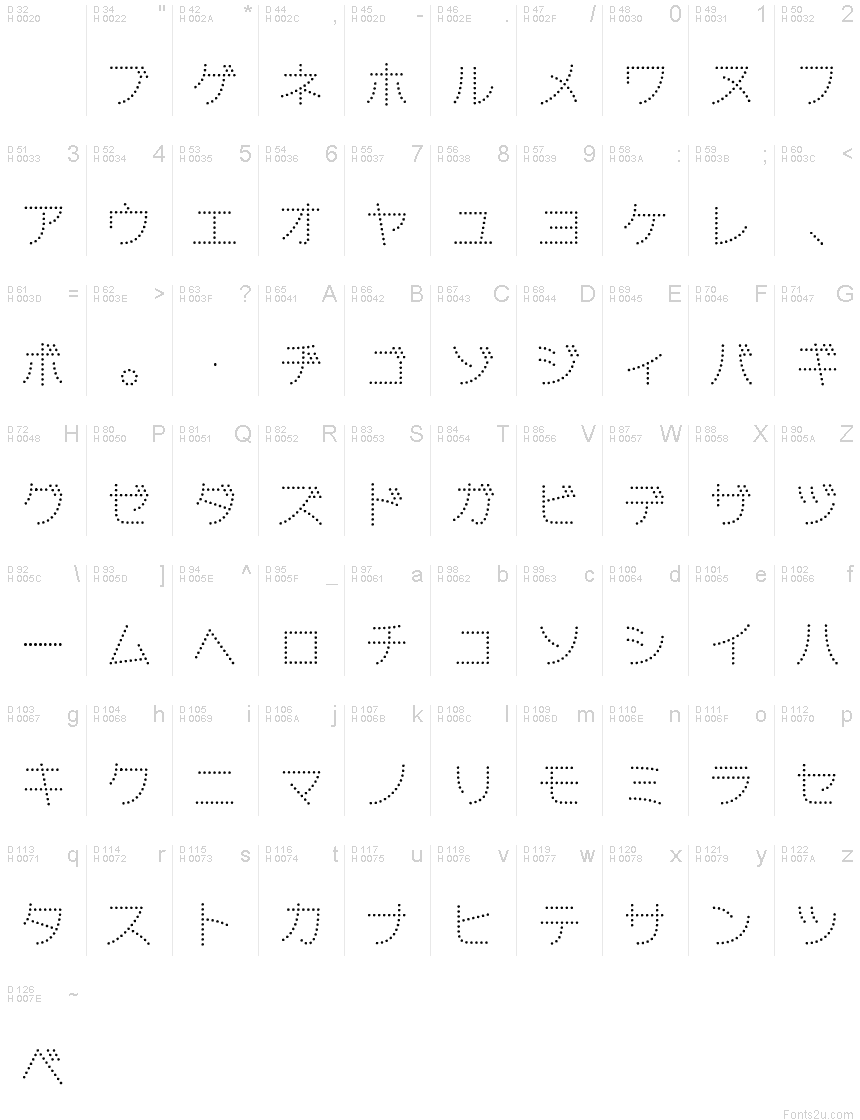
DotlineKat by Honey&Death is a free dotted Japanese display font built from evenly spaced circular marks. The dots trace broad, rounded paths, giving each letter an open, perforated construction.
It can turn a title into a string-of-lights graphic for music posters or event branding. The modular pattern also suits arcade game screens and playful merchandise, where the letters can become part of the decoration. Its glowing-sign quality is especially apt for pop entertainment and nightlife themes.